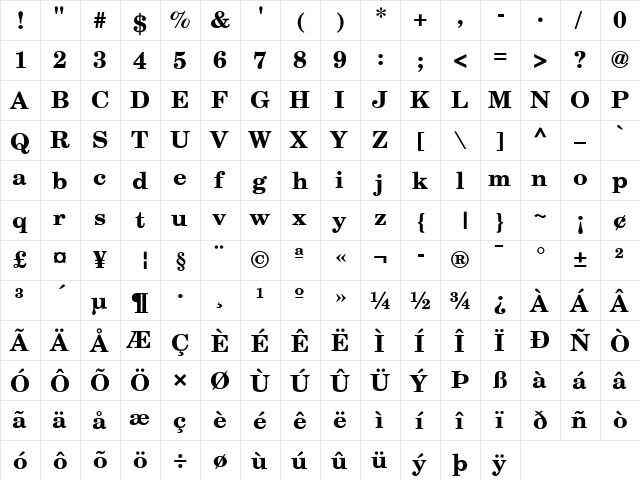
Century Schoolbook L Regular
| Foundry | by URW |
Century Schoolbook L takes a measured approach to typography — its balanced proportions and neutral character make it a reliable workhorse for both digital and print work.